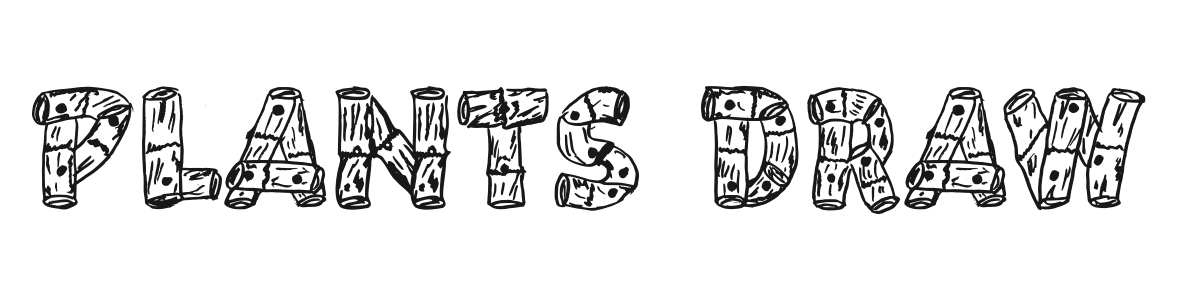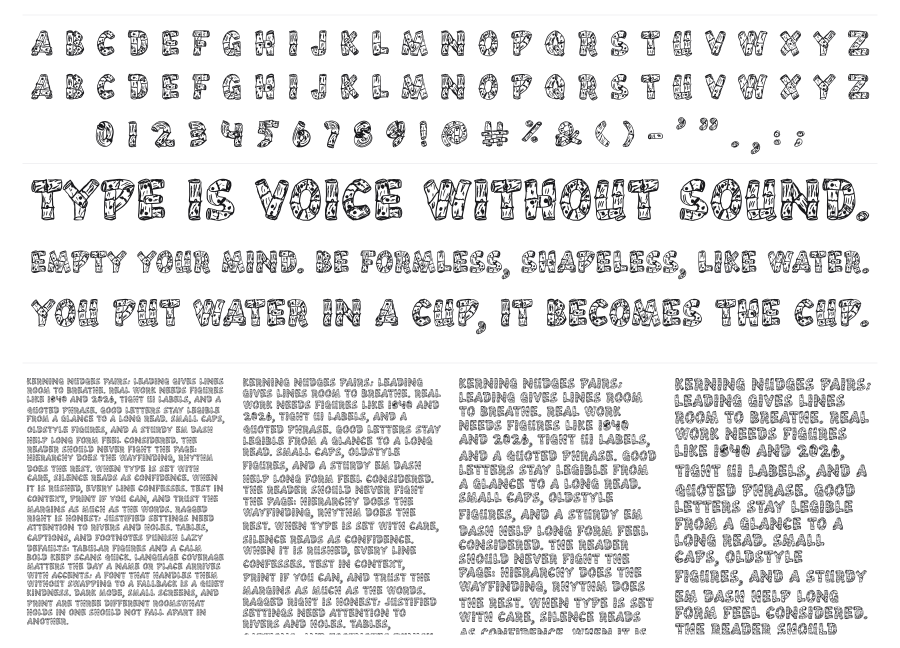
Plants Draw
by Reguler Studio
Plants Draw is a novelty display font where every character is built to look like a cross-section of a log or branch, complete with hand-sketched bark grain, knots, and rings. The effect is chunky, rustic, and unmistakably botanical. It suits nature-themed projects, children's content, eco-conscious branding, and anywhere that needs a handmade outdoor feel.